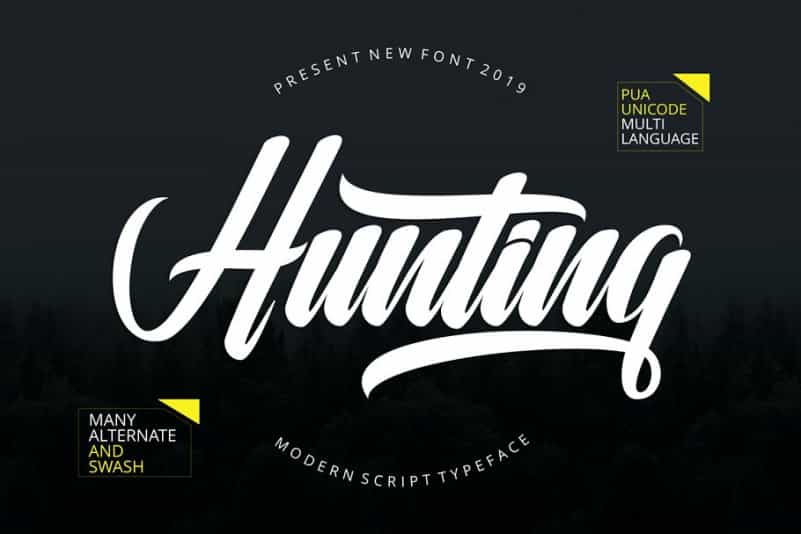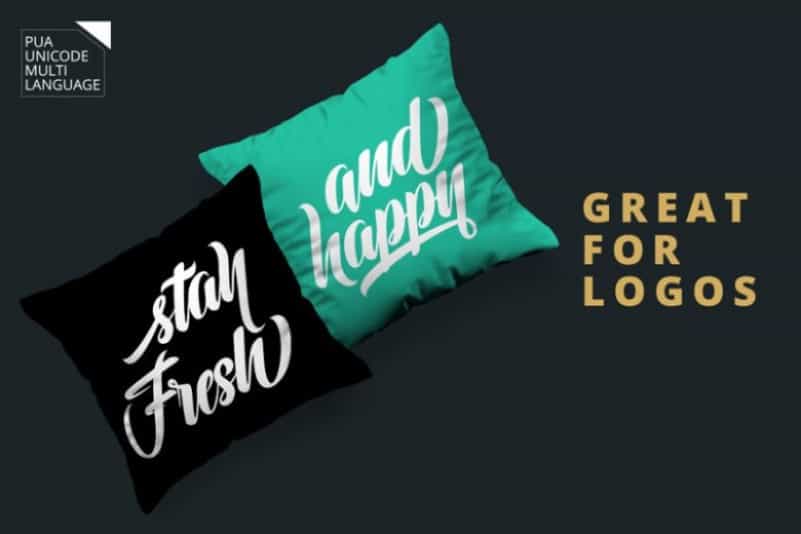
Introducing Hunting Font! It is a design that is shared by Musafir LAB. This flexible script type has many different alternatives for each lowercase letter. This font. It is amusing to use as every word can be altered to your preference.